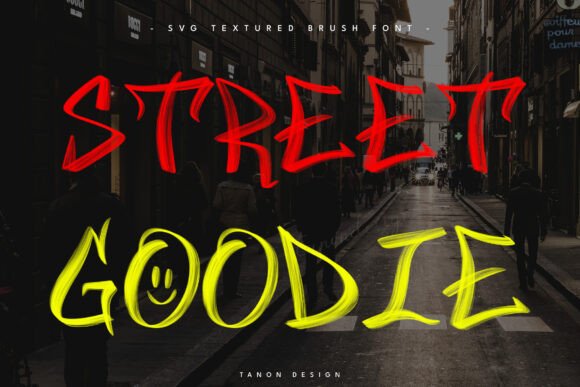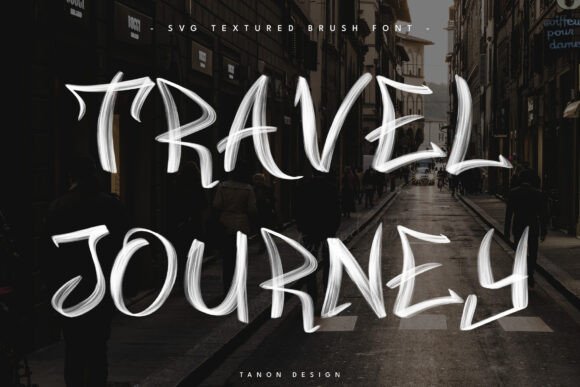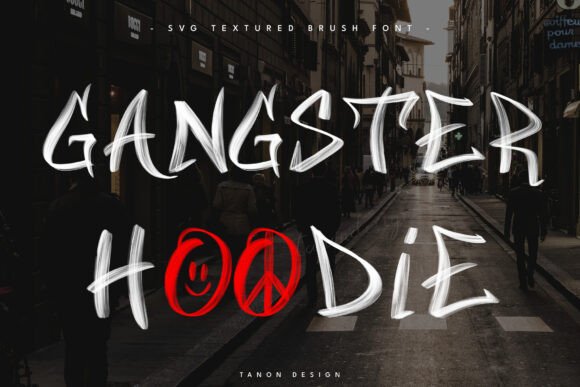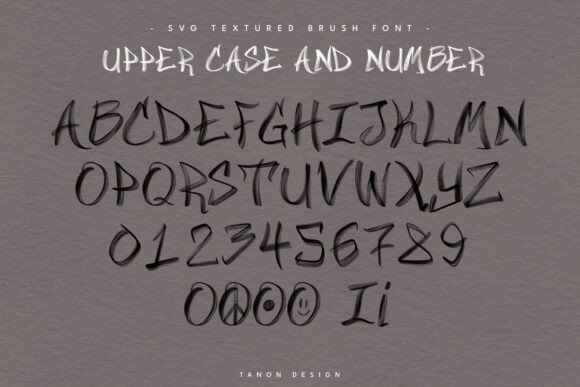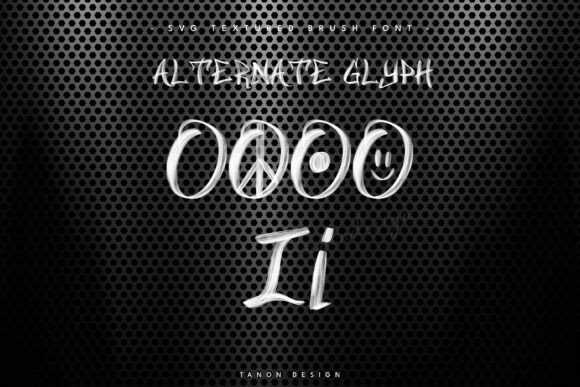
Unleash Your Creativity with the Arfiti Brush Font
Have you ever stared at a blank canvas, feeling stuck and unsure of where to begin? The blank page can be intimidating, but with the right tools, anything is possible. As a designer, you know that the right font can make all the difference in bringing your vision to life.
Enter the Arfiti Brush Font, a stunning, bold, and graffiti-inspired handwritten brush font that will elevate your designs to new heights. Perfect for t-shirt designs, mug designs, digital designs, crafts, cards, and more, this beautiful font is sure to make your projects stand out. As a color font (Opentype-SVG), it’s compatible with popular design software like Photoshop, Illustrator, Silhouette, and Inkscape, making it a valuable addition to your design arsenal.
Arfiti Brush Font Key Features
- Unique Characteristics: Hand-drawn, brush-style font with a distressed, vintage feel
- Letterform Variations: Includes uppercase and lowercase letters, numbers, and punctuation
Arfiti Brush Font Review
First of all, I want to say that I really like the organic feel of the Arfiti Brush Font. The irregular brushstrokes and subtle texture give it a unique and handmade look that’s perfect for creative projects.
Here are some things that work well: ✨ The font has a wide range of weights and styles, making it versatile and easy to use in different contexts. ✨ The brushstrokes are consistent and well-executed, giving the font a cohesive feel. ✨ The font is also highly customizable, allowing you to adjust the stroke width, texture, and color to fit your needs.
However, there are some limitations to consider: ⚠️ The font may not be suitable for text-heavy projects, as the irregular brushstrokes can make it difficult to read. ⚠️ The font is also quite large in file size, which can be a problem for projects with limited storage space. ⚠️ Additionally, the font may not be compatible with all operating systems or software, so be sure to test it before using it in a project.
Overall, I think the Arfiti Brush Font is a great choice for creative projects that require a unique and handmade look. While it may have some limitations, the font’s versatility and customizability make it a valuable tool for designers and artists.
Tips for Getting the Most Out of Arfiti Brush Font
For best results, use Arfiti Brush Font in combination with bold or italic text for emphasis. You can also experiment with different font sizes and colors to create visually appealing text effects.